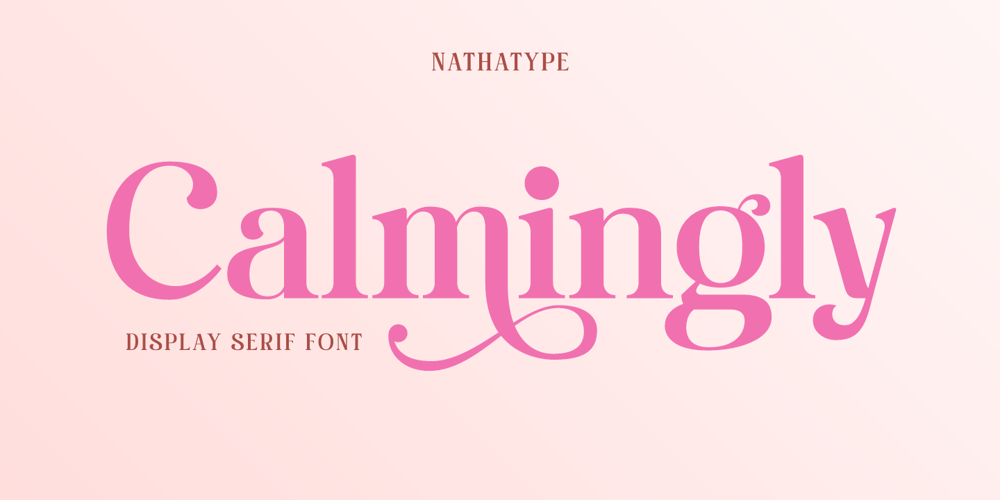
Calmingly Font Family was designed by Donis Miftahudin and published by Nathatype. Calmingly contains 1 styles and family package options. Calmingly is an elegant display serif font suitably applied to express charmingly aesthetic designs and to give more feminim touches to any of your designs. Its simple designs and letter height and line thickness variations make this font legible. Additionally, another characteristic of this font is the curvy letter edges added to some of the letters. Enjoy Calmingly’s lovely features to beautify your designs.Features: Stylistic Sets Multilingual Supports PUA Encoded Numerals and Punctuations Calmingly fits for various design projects, such as posters, banners, logos, magazine covers, quotes, headings, printed products, invitations, name cards, merchandise, social media, etc. Find out more ways to use this font by taking a look at the font preview.Thanks for purchasing our fonts. Hopefully, you have a great experience using our font. Feel free to contact us for further information when you have a problem using the font. Thank you. Happy designing.